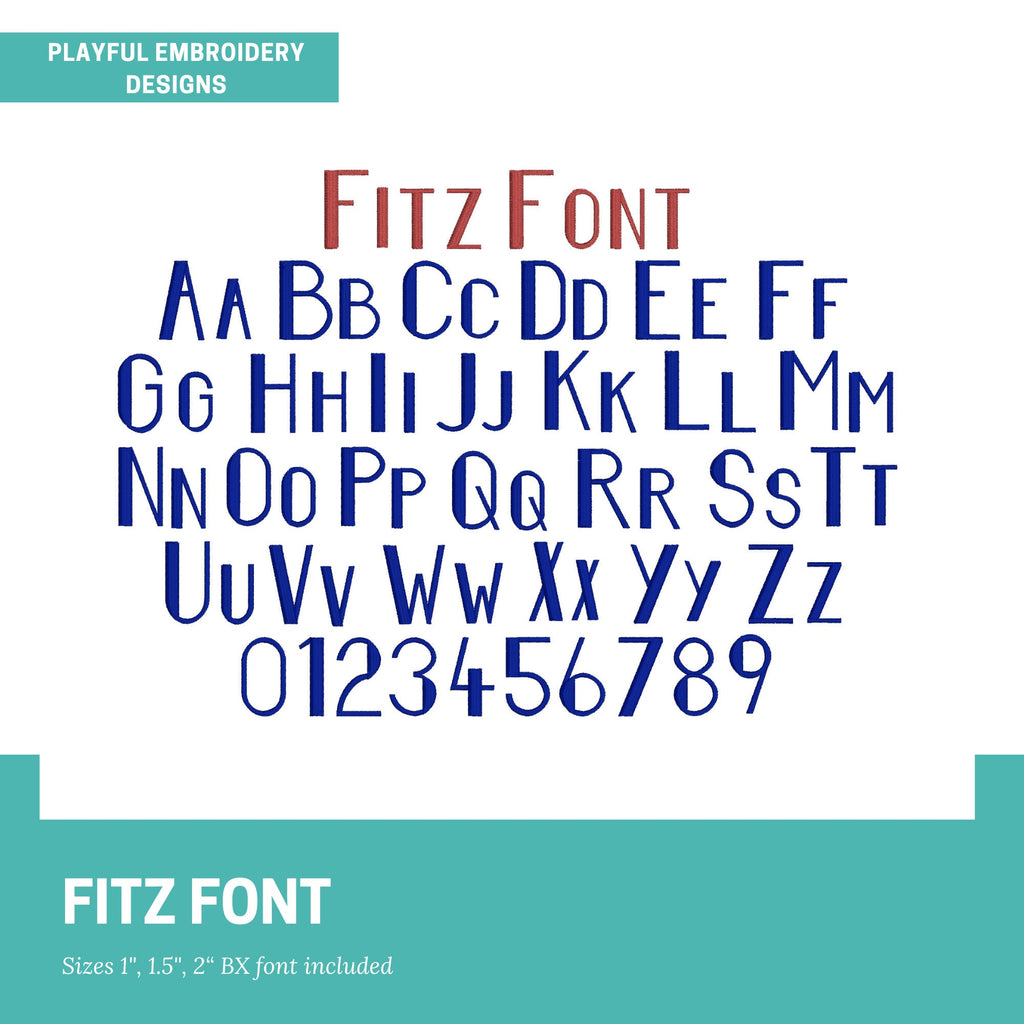
The Fitz Embroidery Font, Modern Satin Stitch Font, Playful Embroidery font, 1", 1.5", 2" font size, BX Font, Masculine Embroidery Font
Introducing the Fitz satin stitch machine embroidery font. A modern, masculine embroidery font in satin stitch.
Each size includes 52 letters and 10 numbers. .